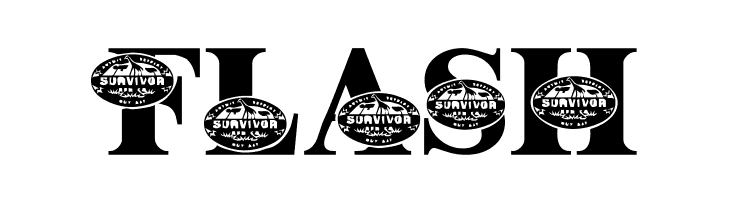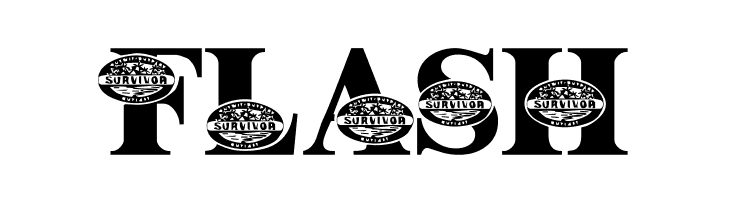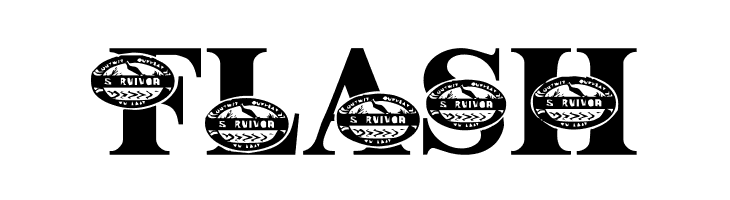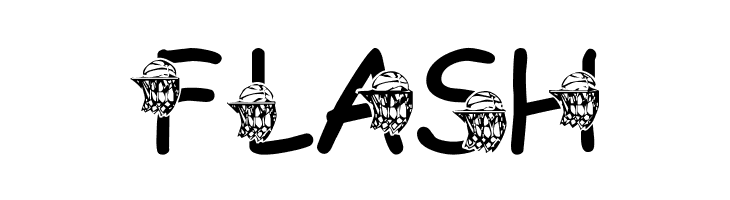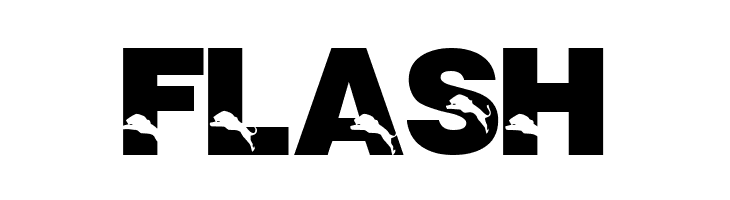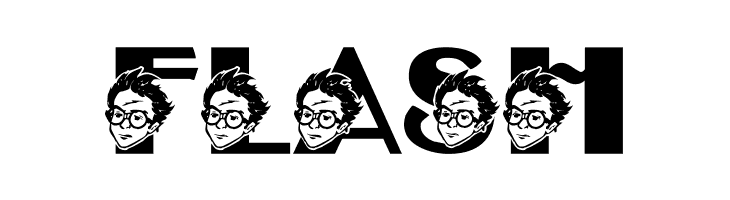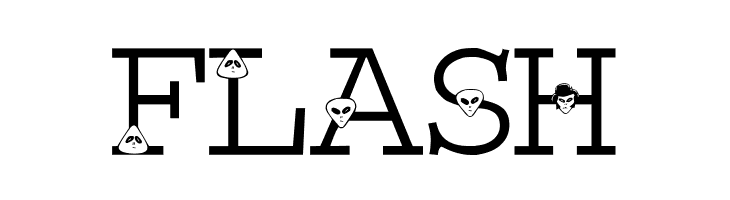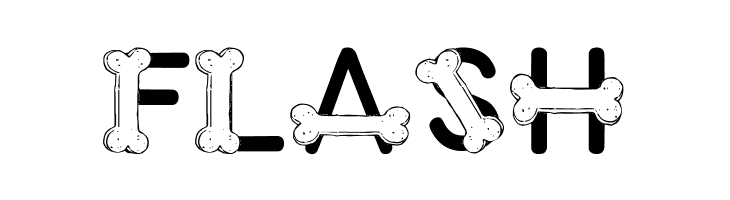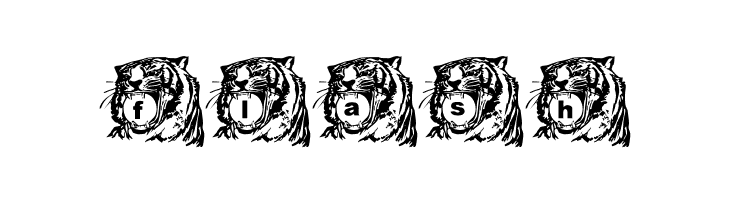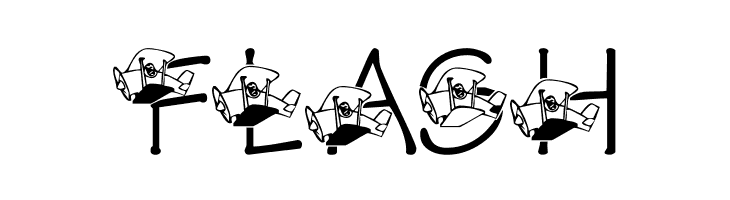
A bold, adventurous font with strong, angular lines and a rugged style.
A bold, decorative font with tribal-inspired embellishments.
A bold, decorative font with intricate patterns, ideal for striking designs.
A bold, basketball-themed decorative font with dynamic swoosh elements.
A playful font with letters inside basketball hoops, perfect for sports themes.
A bold, decorative font with integrated lion silhouettes in each letter.
A playful, character-filled font with a whimsical, magical theme.
A playful serif font with alien-themed decorative elements.
A playful font with bone-shaped characters, perfect for pet-themed designs.
A decorative font with characters encased in tiger illustrations, offering a wild and artistic style.
A bold, decorative font with toy soldier motifs embedded in each letter.
An ornate and decorative script font with elaborate swirls and flourishes.
A playful font with cartoon airplane motifs integrated into each letter.
A decorative font with tropical island motifs integrated into each letter.
A bold, decorative font with tulip motifs integrated into each character.
A festive font with letters inside turkey silhouettes, perfect for holiday themes.
A playful, cartoon-themed decorative font with integrated character designs.
A playful font with baby animal illustrations integrated into each letter.
A playful font with bold letters and charming animal illustrations.
A whimsical font with teddy bear illustrations integrated into each letter.
A bold, decorative font with acacia tree silhouettes atop each character.
A bold, geometric font with sharp edges and uniform strokes, ideal for impactful design.
A bold, decorative font with winter sports motifs integrated into each character.
A whimsical, illustrated font with bold, rounded characters featuring integrated character designs.
A decorative font with warrior-themed illustrations integrated into each character.
A bold, playful font with airplane motifs intersecting each letter, perfect for travel themes.
A playful font with cartoon characters integrated into bold, rounded letters.
A playful font with characters inside cartoon whales, perfect for fun projects.
A whimsical, cartoonish font with characters holding flags, adding a playful touch.
A bold, decorative font with witch hat embellishments for a spooky, whimsical look.
A whimsical font featuring beloved children's show characters integrated into bold, sans-serif letters.
A playful, decorative font with cowboy-themed illustrations inside bold letters.
A bold, whimsical font with grasshopper illustrations on each letter.
A bold, modern font with integrated yin-yang symbols for a unique, thematic style.
A decorative font with sunburst motifs encasing each character, ideal for creative projects.